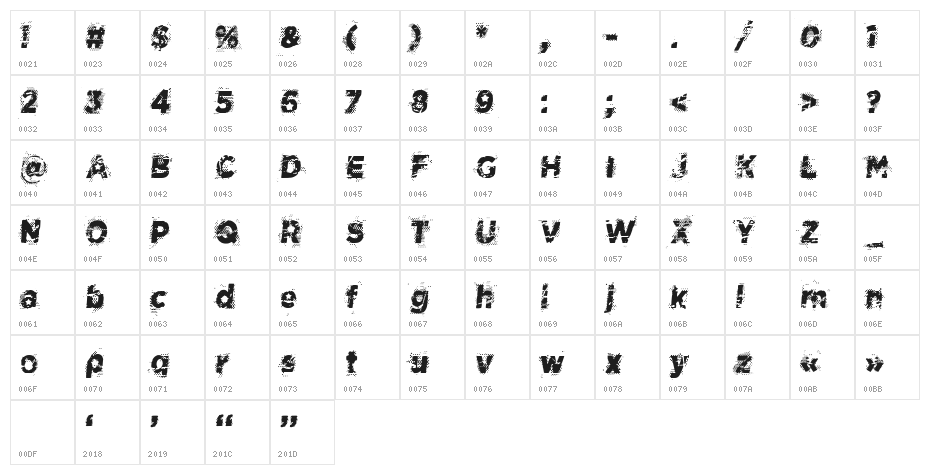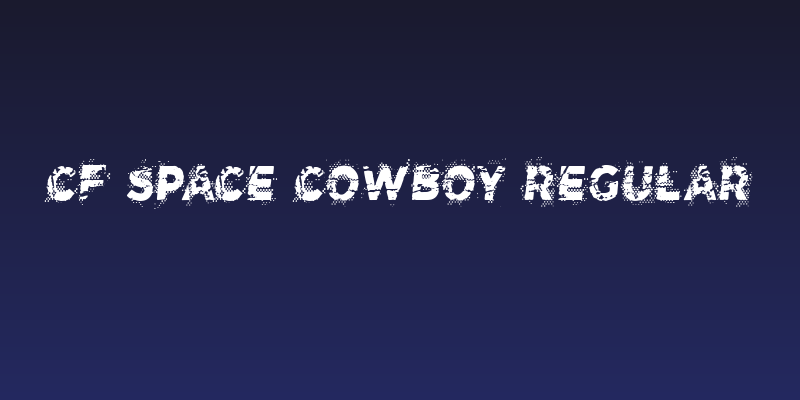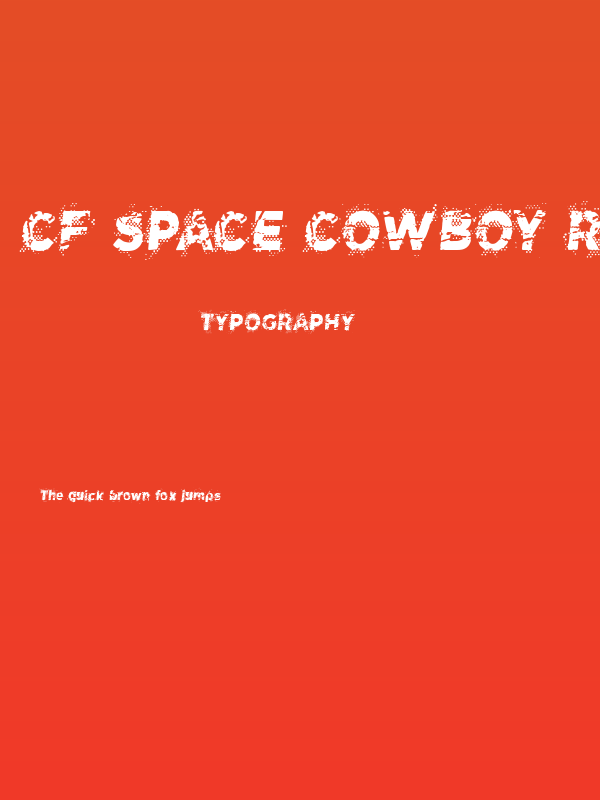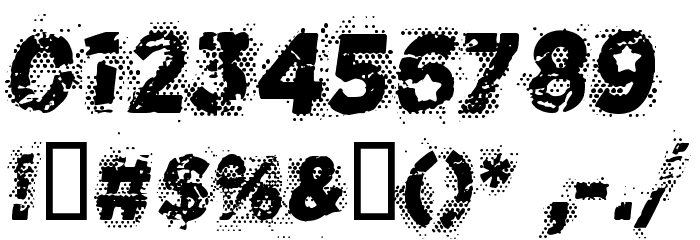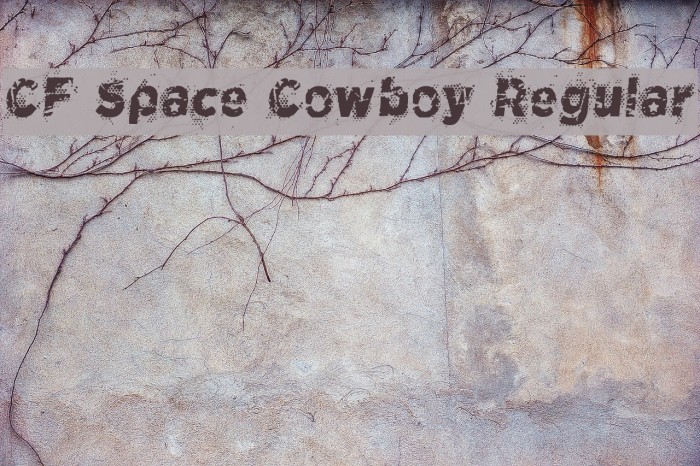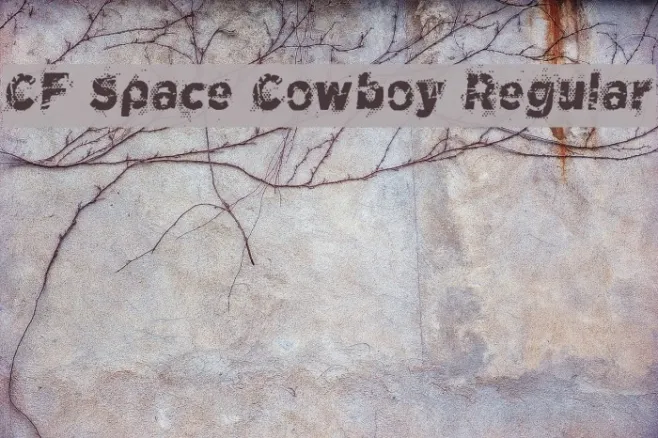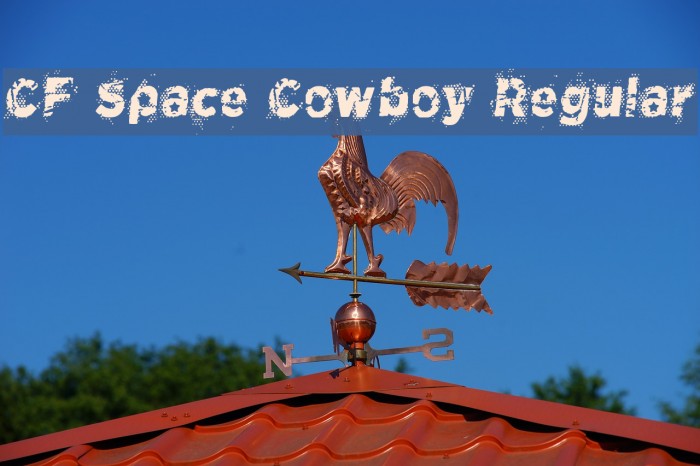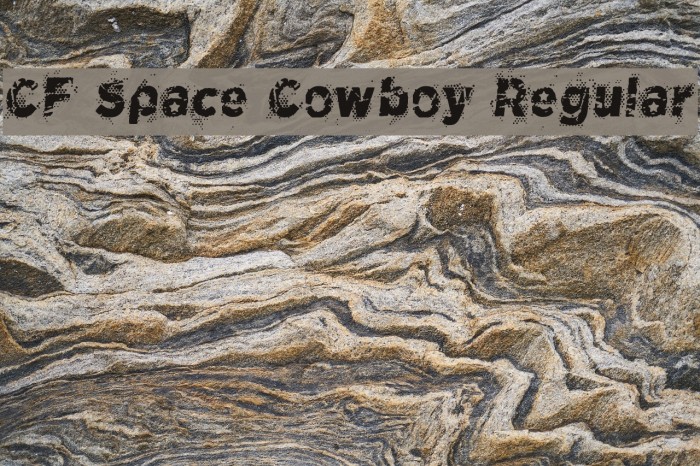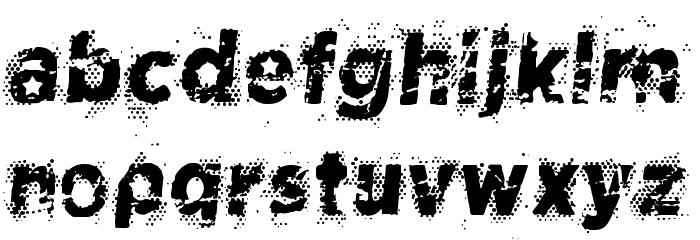
CF Space Cowboy Regular Font
CF Space Cowboy Regular Description
This font features a bold, distressed style with a unique halftone pattern that gives it a rugged, textured appearance. The characters are bold and impactful, with a consistent weight across both uppercase and lowercase letters. The halftone effect creates a sense of movement and dynamism, making it stand out in any design. The numbers and special characters maintain the same stylistic approach, ensuring a cohesive look. This font is ideal for projects that require a strong visual impact and a touch of vintage or retro flair.
| Proposed Projects | Ideal for posters, album covers, vintage-themed designs, and branding that requires a strong visual impact. |